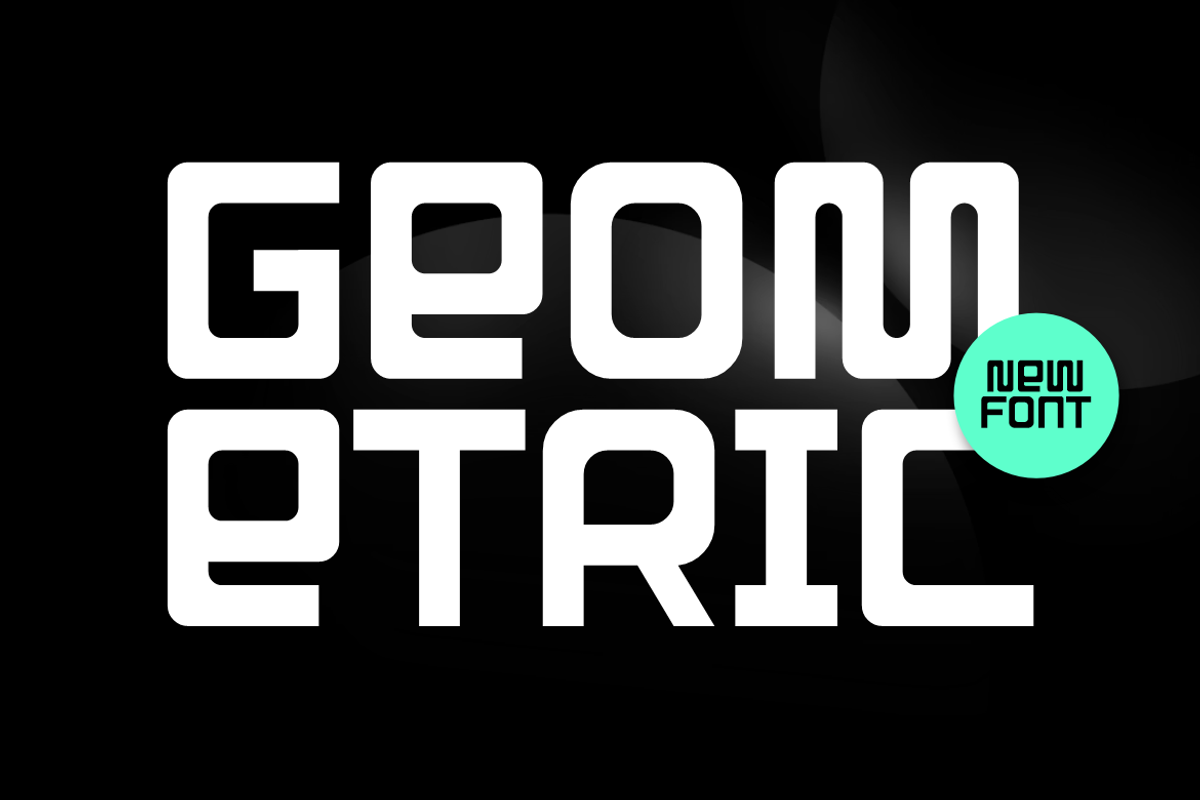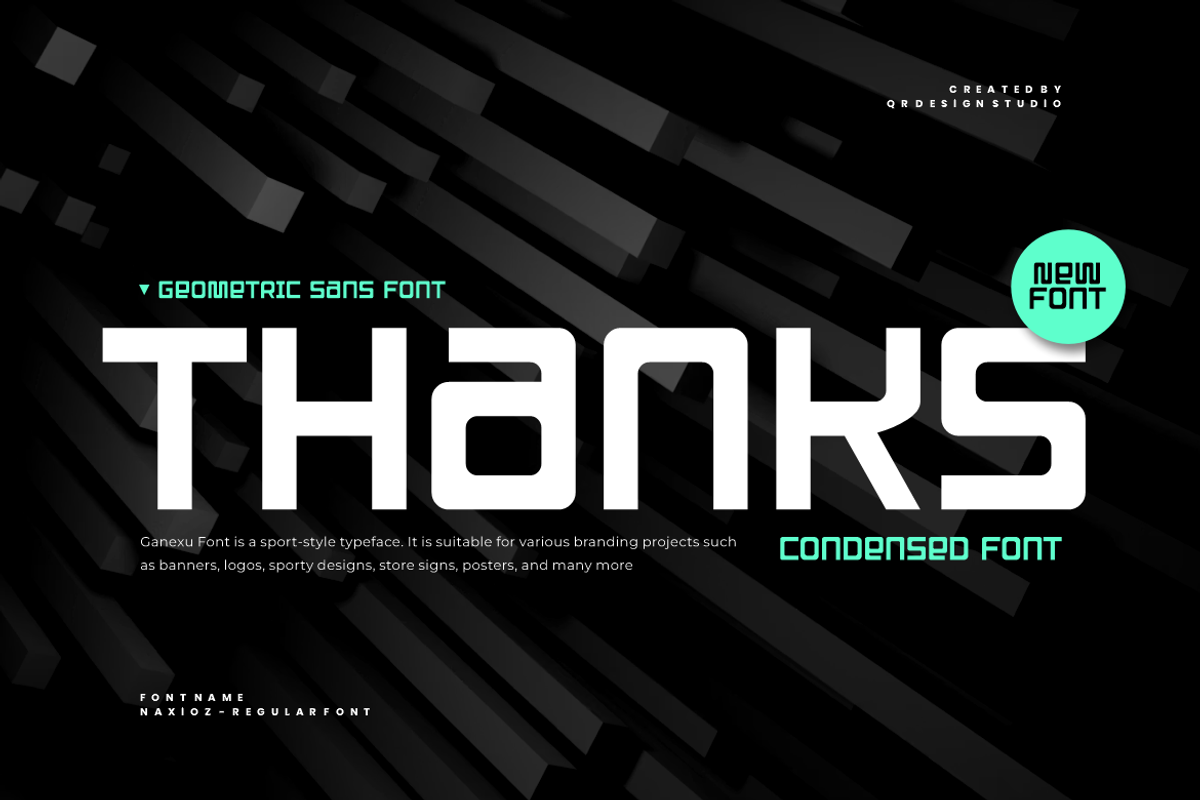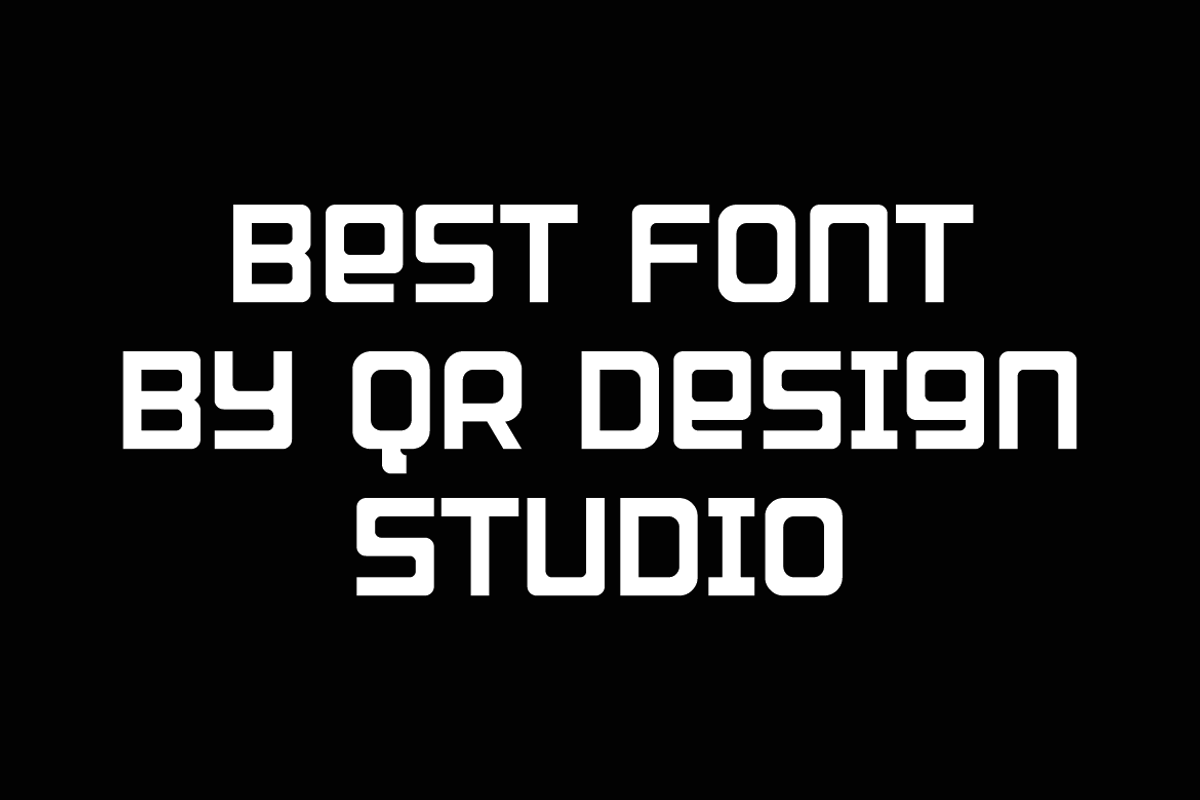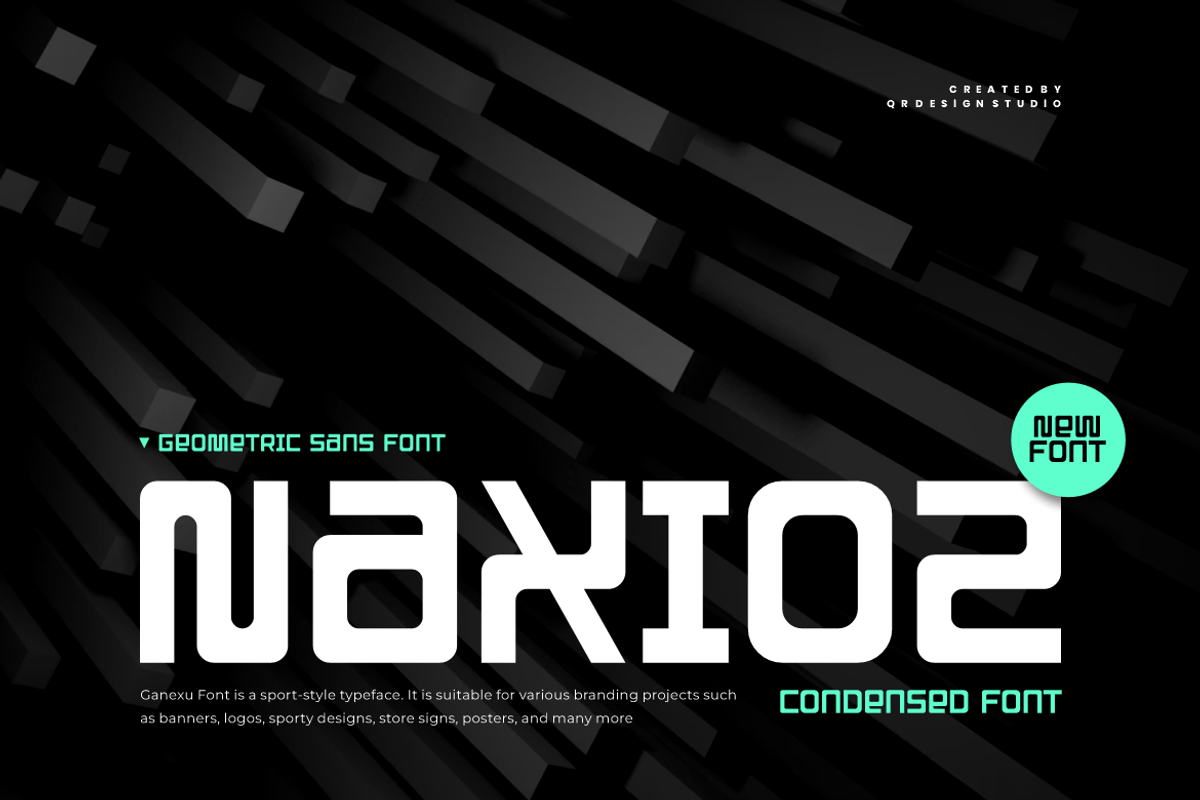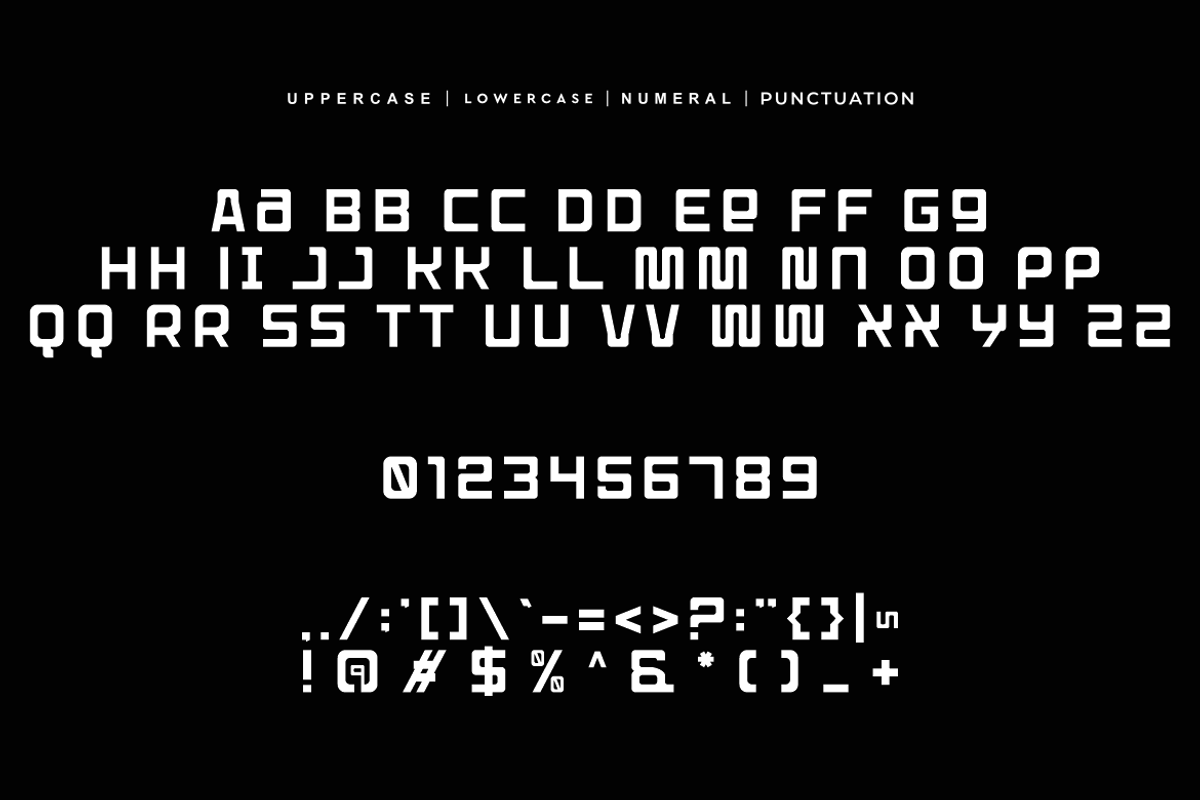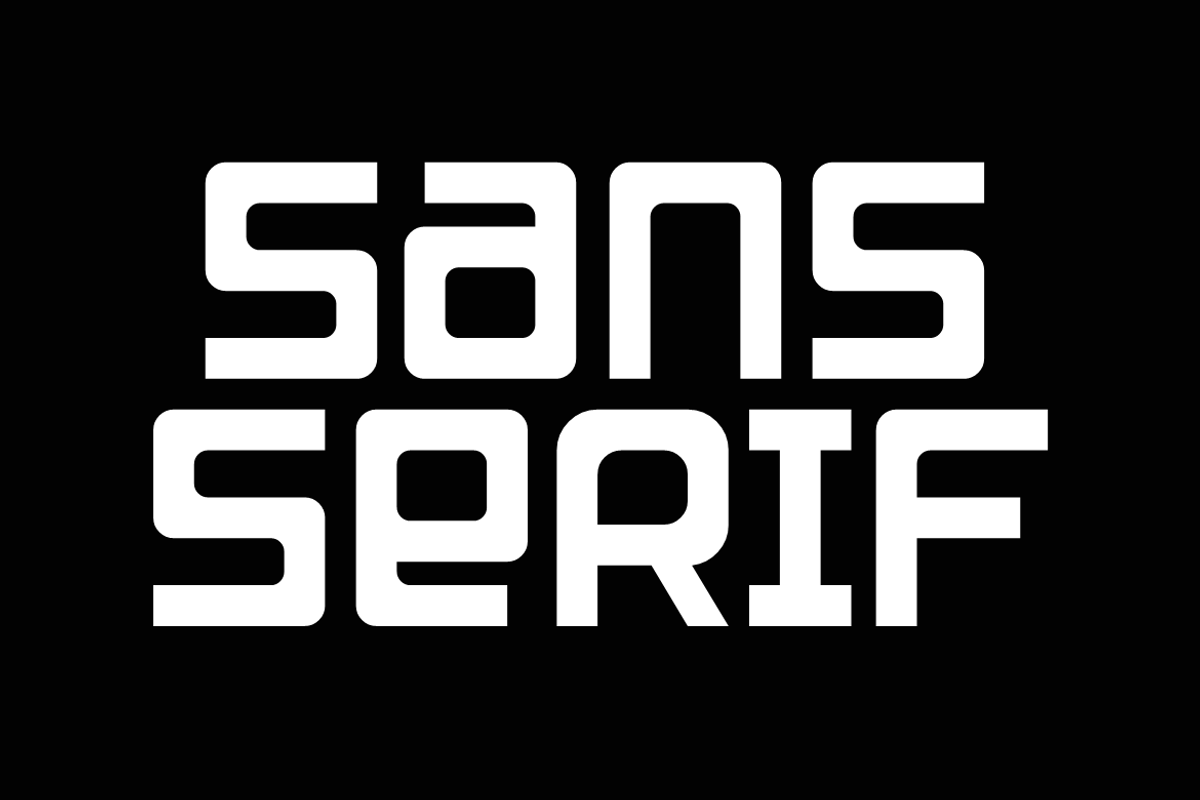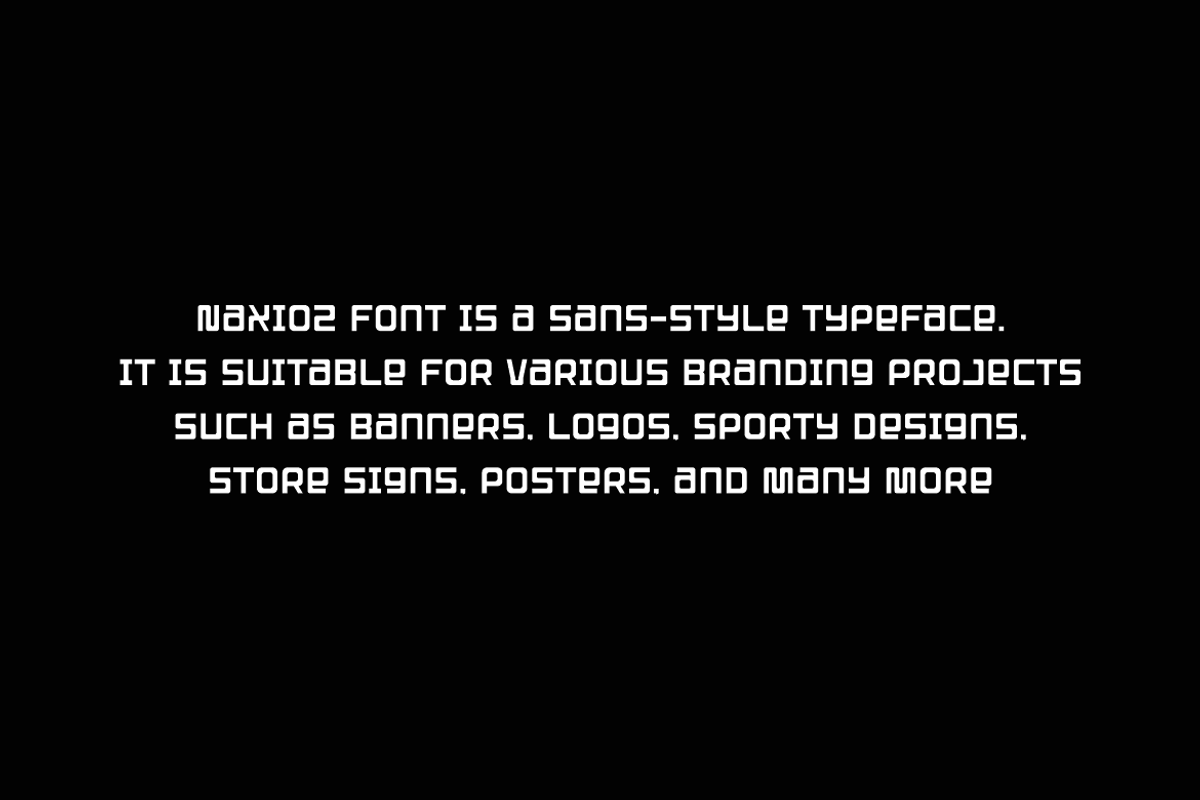
Naxioz - Geometric Sans Font
Naxioz Font is a bold and authentic display typeface. It’s perfect for various branding projects such as logos, sports designs, and more. This font stands out beautifully in a wide range of contexts.